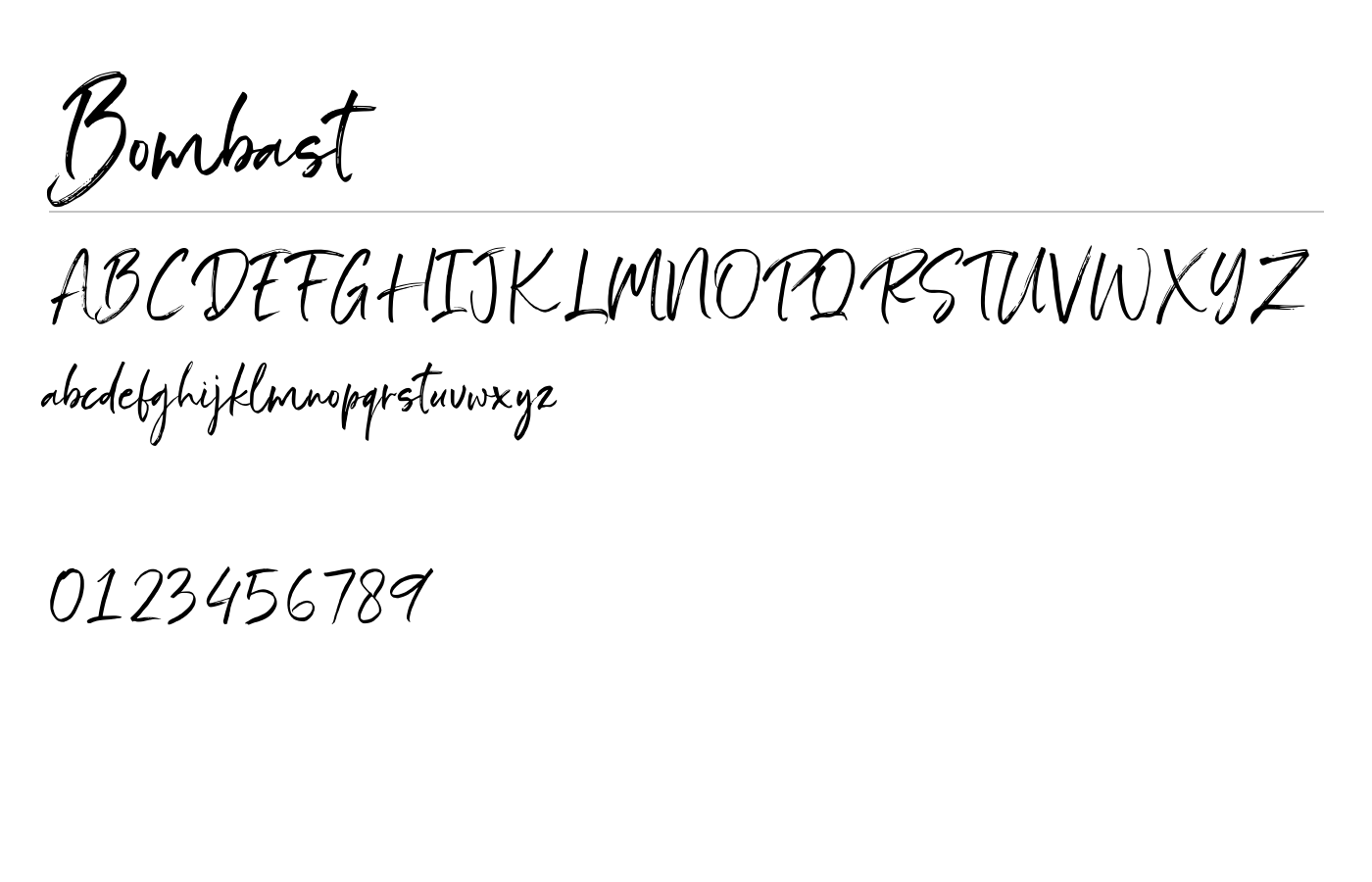
Bombast is an energetic, handwritten script font featuring a dynamic, brush-stroke style with varied stroke thickness that gives it a lively, expressive feel. Its tall, slightly condensed letters and informal flow make it ideal for creative branding, packaging, and headlines that need a bold yet personal touch. This font works best when you want to convey spontaneity and artistic flair while maintaining clear readability.
Bombast Font
About Bombast Font
| Designer | Risca Anitawati |